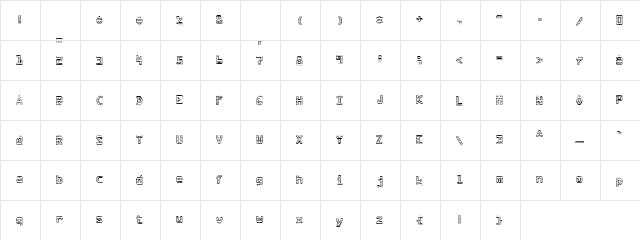
Design Context for NeoSight Typeface
NeoSight is a composed and adaptable typeface that performs quietly and consistently across a wide range of design contexts.